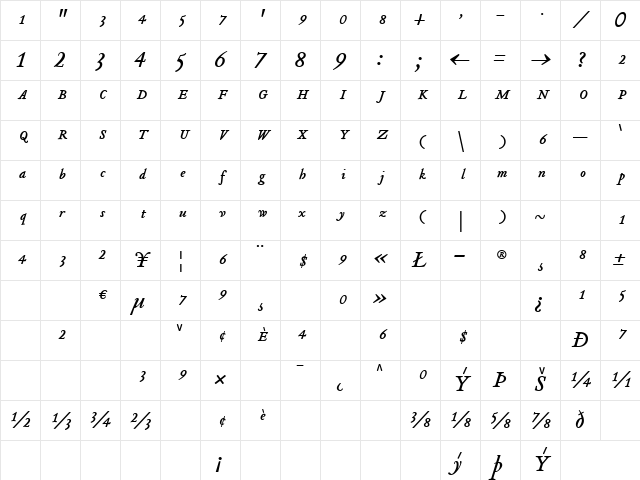
Tribute ItalicOrdinals
Style: ItalicOrdinals
Design Context for Tribute
Tribute is a composed and adaptable typeface that performs quietly and consistently across a wide range of design contexts. The slanted form adds forward momentum and visual energy.
Pro Tip: Use Tribute for emphasis, pull quotes, and subheadings where its slanted energy can add rhythm to the layout.